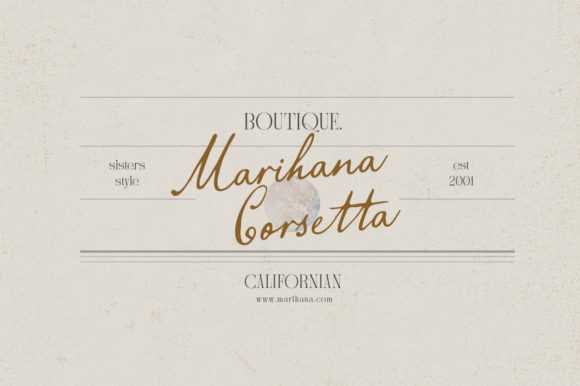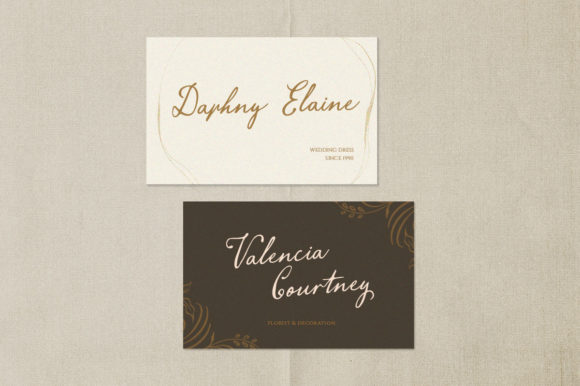
Aviola Memories Font
Aviola Memories is a beautiful and vintage styled script font based on authentic hand writing with natural signature styles. It was perfectly designed to be applied especially on logos, invitations, labels, logos, magazines, books, greeting/wedding cards, packaging, fashion and more.